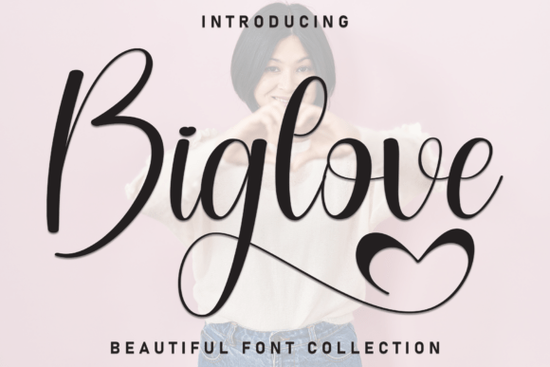
If you hand-letter everything from greeting cards to mockups, you already know a good script font can do the heavy lifting. Biglove Font is a handwritten display typeface that feels like a warm hug in letterform playful enough for casual crafts, yet polished enough for wedding invitations and branding. Its rounded strokes, slightly bouncy baseline, and soft terminals make any line of text look as if you penned it yourself with a favorite brush marker.
Is Biglove Font suitable for wedding stationery?
Absolutely. The font’s chief strength is its ability to feel both personal and celebratory. The hand-drawn flow and gentle swashes bring an intimate, romantic quality to save-the-date cards, place cards, menus, and invitation suites. Because it’s a display font, it works best at larger sizes perfect for names, headers, and short love notes. Pair it with a simple serif for body copy and you’ll have an invitation suite that feels thoughtfully designed, not templated.
How does Biglove compare to other script fonts?
Biglove leans sweet and approachable, with a clear handwritten texture that avoids appearing messy. If you need something with a slightly more formal cursive rhythm, Simple Signature offers elegant connecting strokes that still feel handcrafted. When you want the same friendly energy but a bit more condensed lettering, Valeysoul is a strong alternative it has that diary-like charm that suits scrapbooking and journaling. For projects around teaching or kids’ activities, Happy Teacher brings a bouncy, chalkboard-inspired style that pairs wonderfully with school-themed designs. On days you need a touch of magic, Little Starli incorporates tiny star motifs and a light, airy baseline perfect for fairy-tale invitations. And if you’re after a bold, fast brush look with lots of energy, Volley gives you that sporty, dynamic feel while still being clearly handwritten. Each of these fills a slightly different niche, but Biglove remains a top pick when you want joyful, unforced warmth.
- Readability at size: Test a sample word in the exact size you’ll print or cut. The font’s thin strokes may become lost under 12pt, so keep it as a display face.
- Pairing: Try a clean sans-serif or a classic serif underneath. Biglove shines when it’s the star, so let a neutral secondary font handle the details.